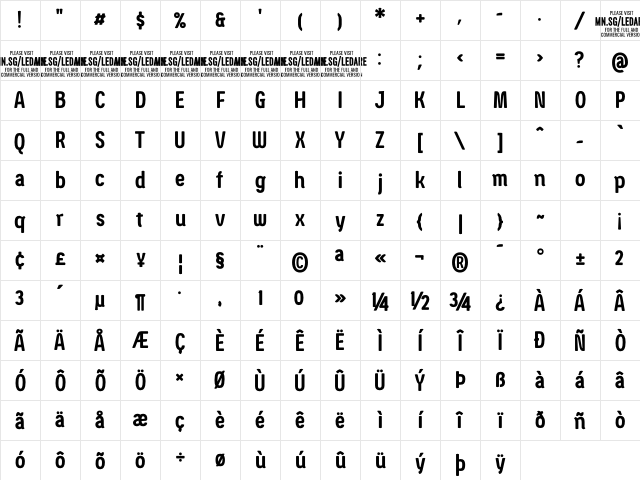
Complete Ledare Bold PERSONAL USE ONLY Regular glyph index. Displaying only characters natively supported by Ledare Bold PERSONAL USE ONLY Regular font.
Ledare Bold PERSONAL USE ONLY is a composed and adaptable typeface that performs quietly and consistently across a wide range of design contexts. Its bold stroke weight gives it real presence on the page.